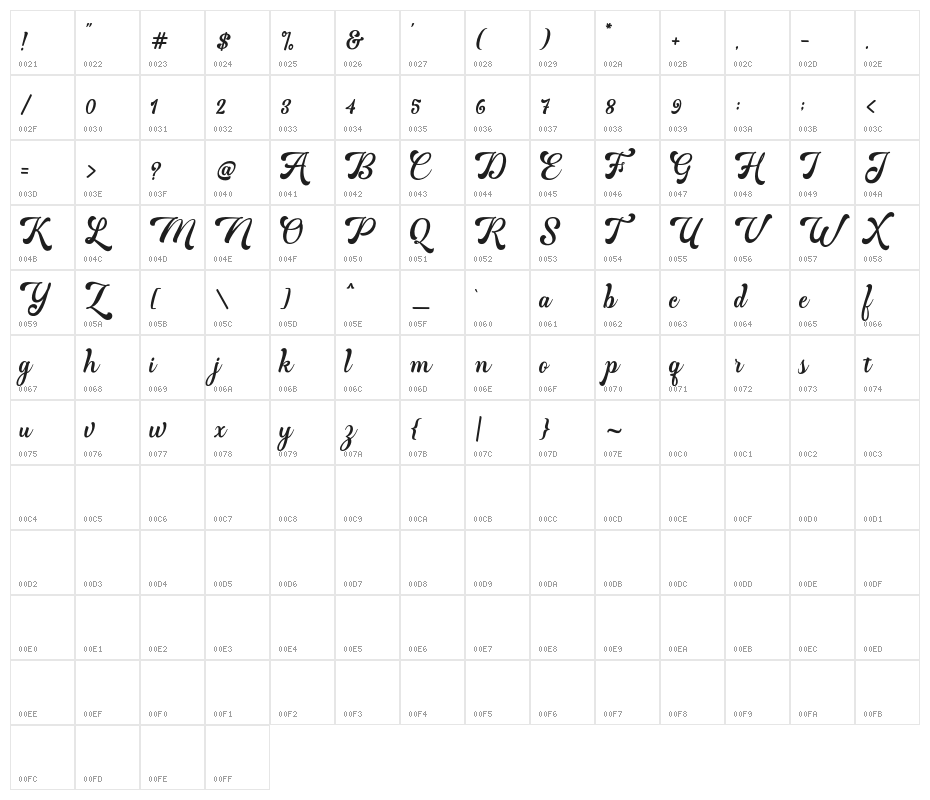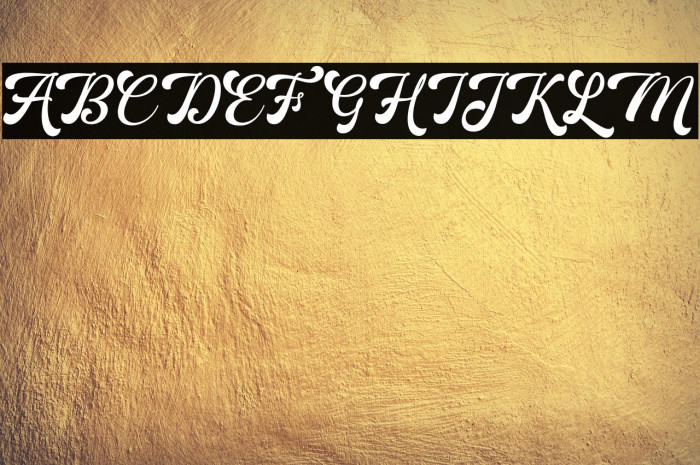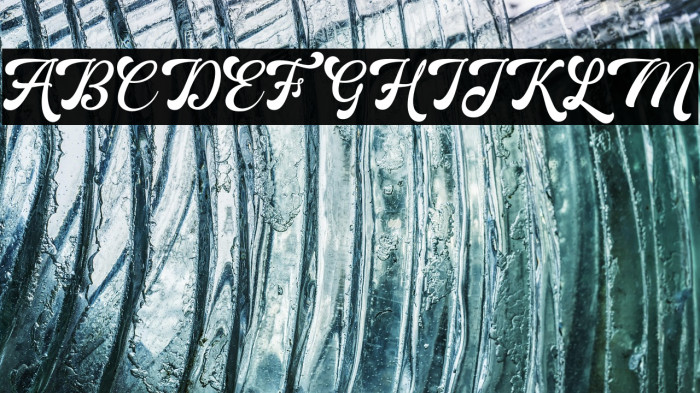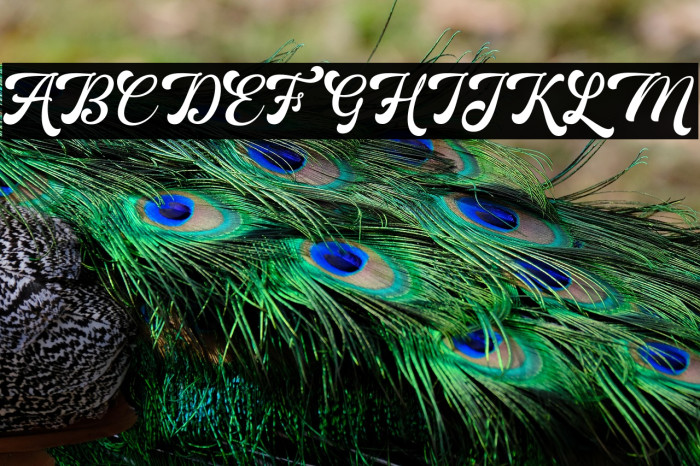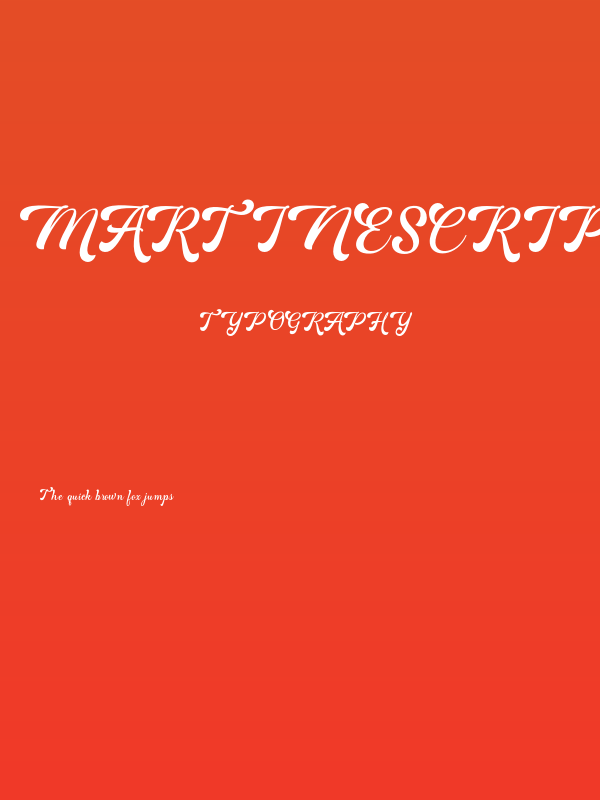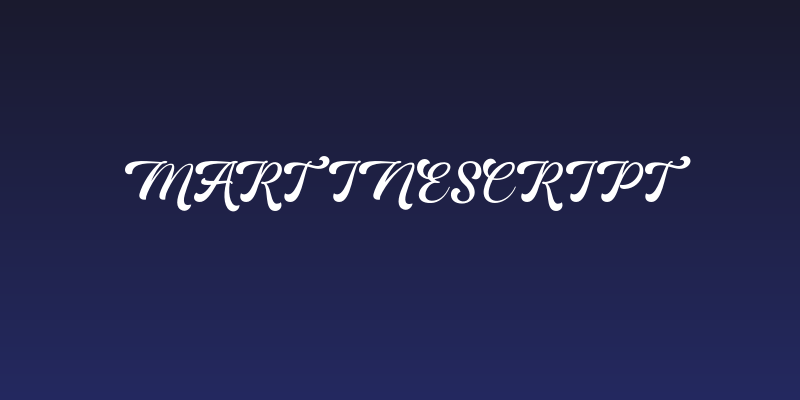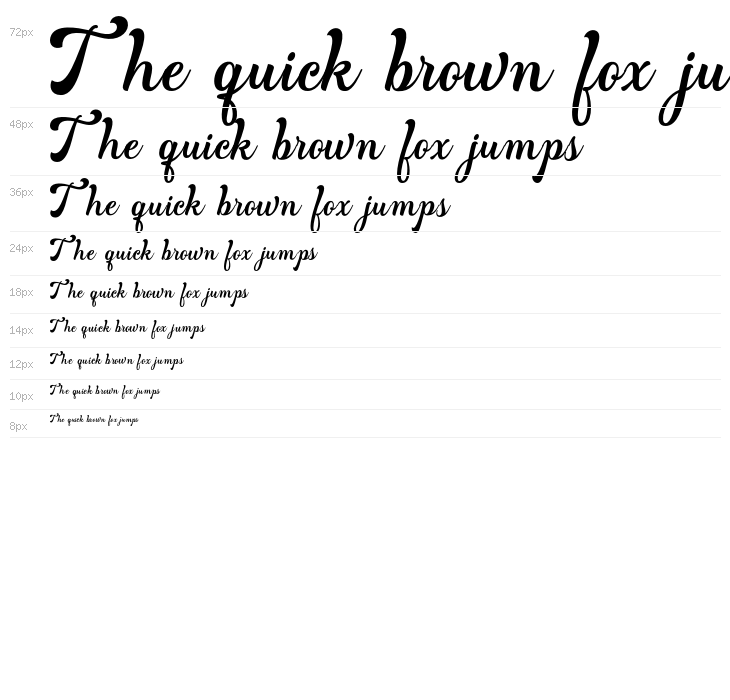
MartineScript Font
MartineScript Description
This font exudes elegance and sophistication with its flowing, cursive style. The characters are intricately designed, featuring smooth curves and a consistent stroke width that gives it a harmonious appearance. The uppercase letters are particularly ornate, with flourishes that add a touch of grandeur. The lowercase letters maintain a graceful continuity, making the font highly readable despite its decorative nature. The numerals and special characters are crafted with the same attention to detail, ensuring a cohesive look across all glyphs. This font is perfect for projects that require a touch of class and elegance.